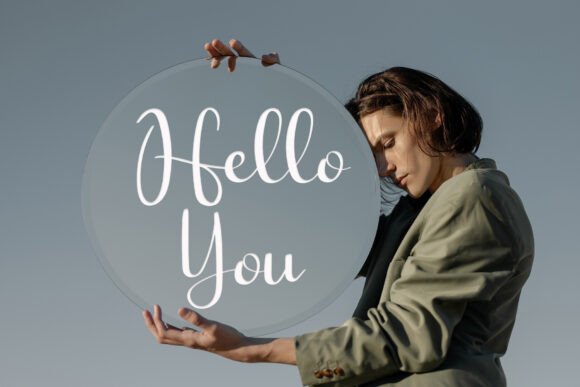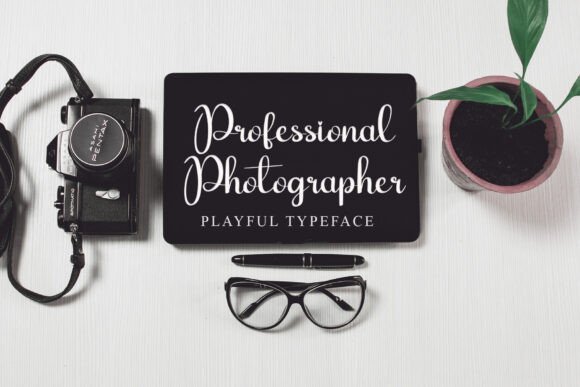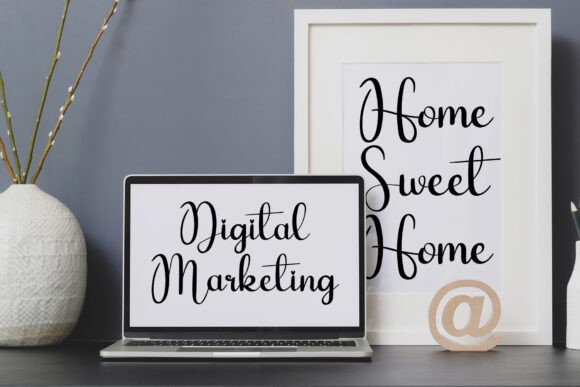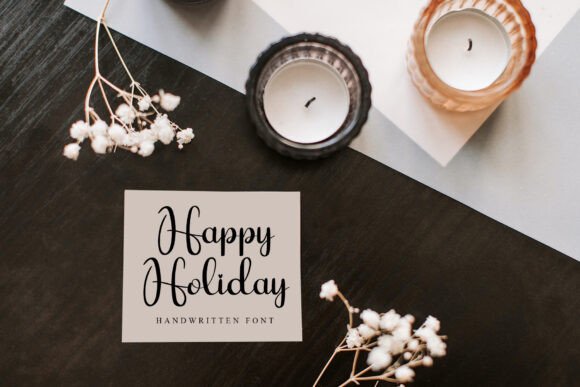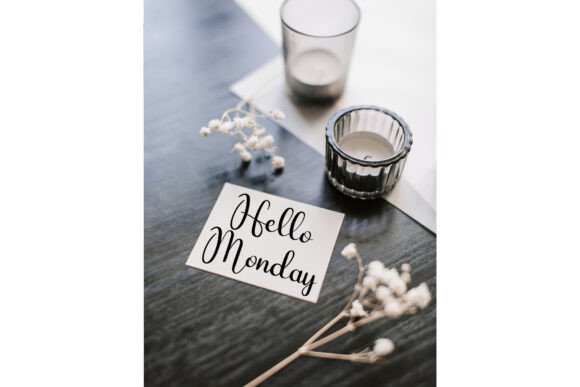
Introduction to Simple Mandala Font
Simple Mandala is a unique and elegant font specially designed just for you.
This font is made with a professional hand touch and is perfect for your projects This font is very suitable for use in your work projects, all greeting cards from wedding invitation cards, birthdays, all types of parties.
Key Features of Simple Mandala Font
Why Choose Simple Mandala Font?
Simple Mandala Font offers exceptional quality and versatility, making it a valuable addition to your design toolkit. Whether you’re creating for personal projects or commercial use, Simple Mandala Font delivers professional results.